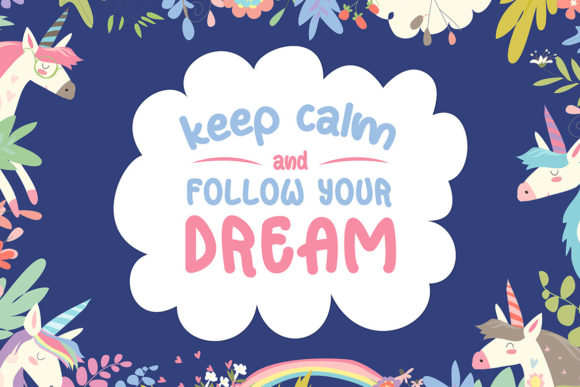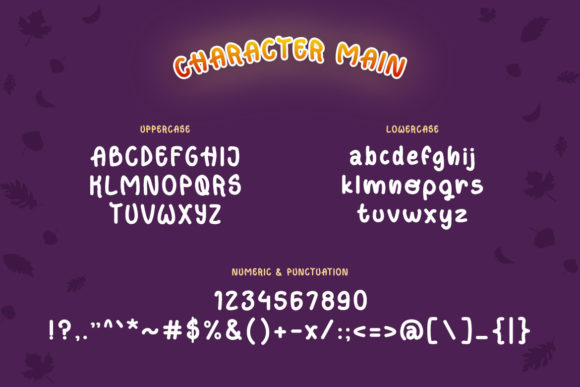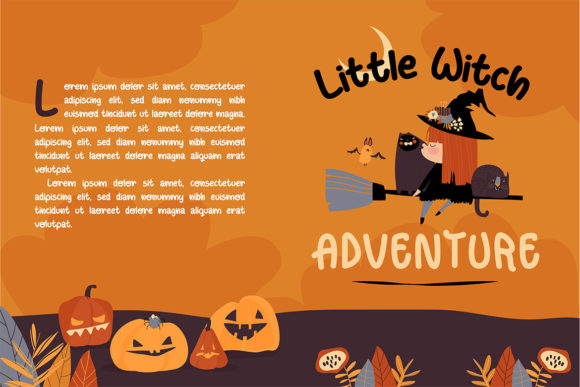
Introduction to Poppin Story Font
Poppin Story is a retro and magical display font.
It works well on various design ideas such as online games, teens event posters, school supplies, posters, movie titles, youtube covers, youtube thumbnails, social media page covers and more .